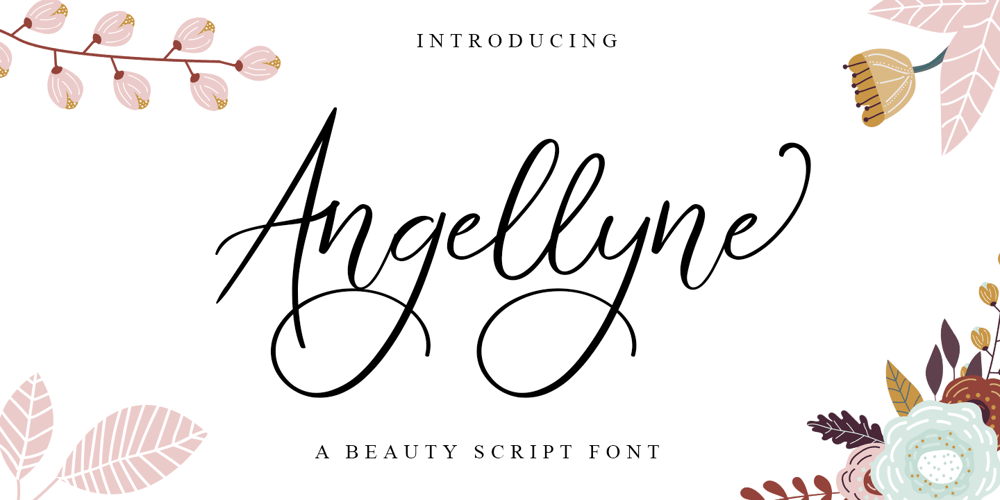
Angellyne Font Family was designed by Sarwo Edhi Prayitno and published by Haksen. Angellyne contains 1 styles and family package options. Angelline Script Font!If you are needing a touch of casual chic calligraphy for your designs, this font was created for you!Angellyne was built with OpenType features and includes beginning and ending swashes, alternate characters for both lowercase and uppercase letters, loads of different swash alternates for lowercase letters, numbers, punctuation, alternates, ligatures and it also supports other languages ๐ with many glyphs!Accessing the swashes / opentype features / glyphs:This font works best in a program that supports OpenType features such as Adobe Indesign, Adobe Illustrator CS, or Adobe Photoshop CC. You can access the swashes and alternates from the ‘Glyphs Panel’ in these programs.More Questions? Here are some (potential) answers! You are not permitted to resell this font in any way. Multilingual Support is included for Western European Languages Also, the sans-serif font used in the preview images is Gotham ๐ Cheers!